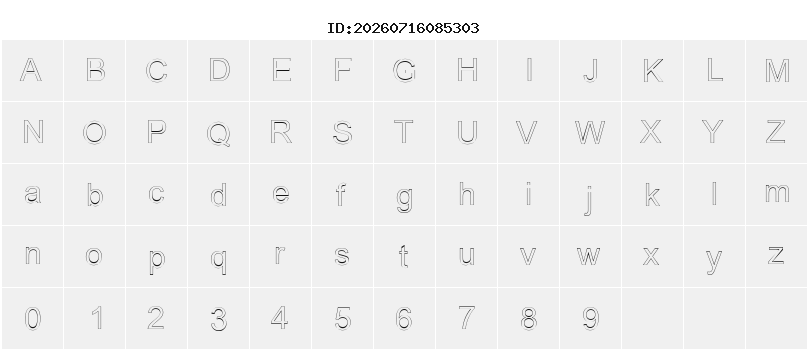
• Font Name: Arialic Hollow
About Arialic Hollow.ttf
Arialic Hollow.ttf is a modern, elegant sans-serif font designed for ultimate readability and visual harmony. Perfect for branding, headlines, web design, and print materials.